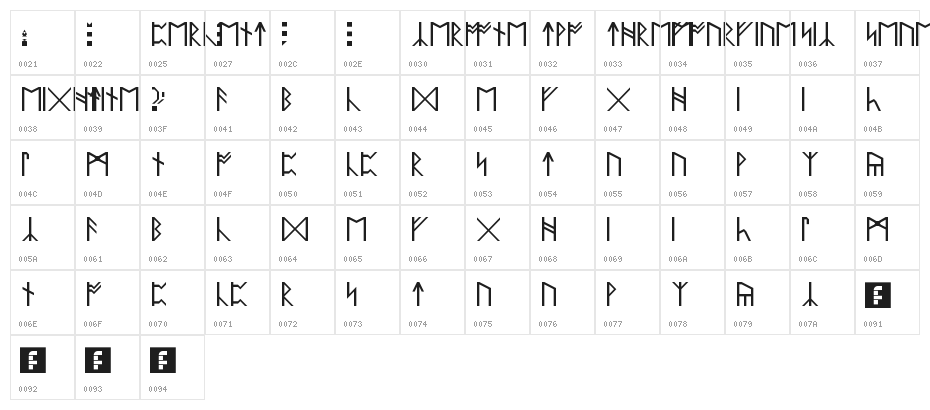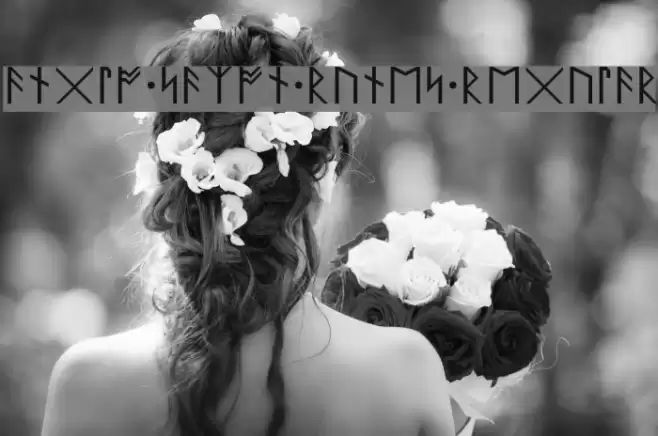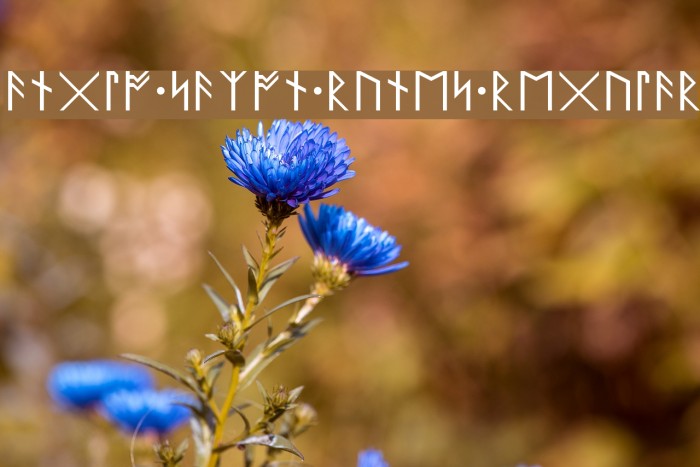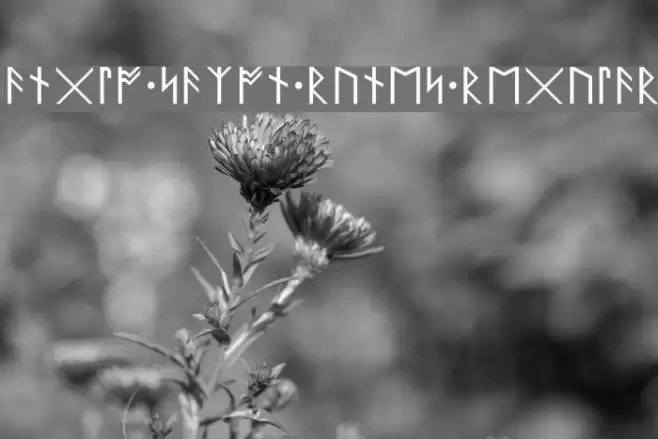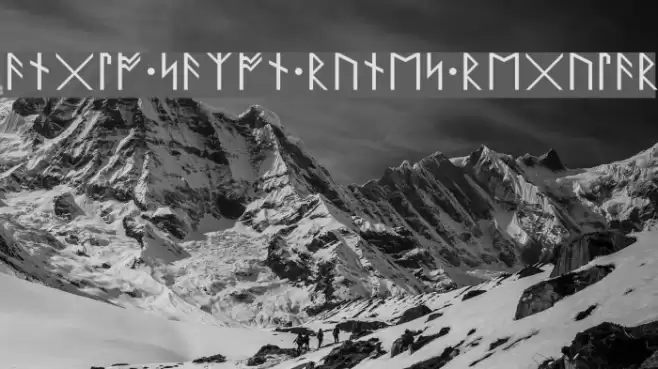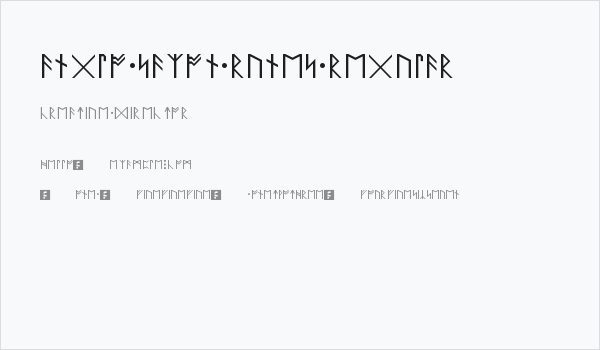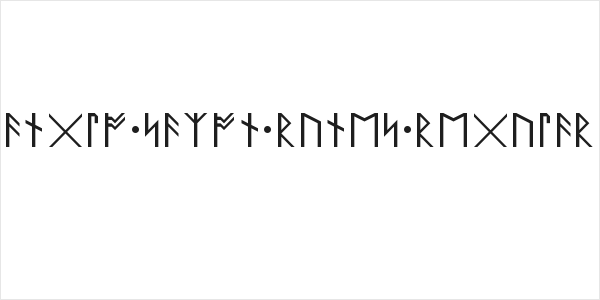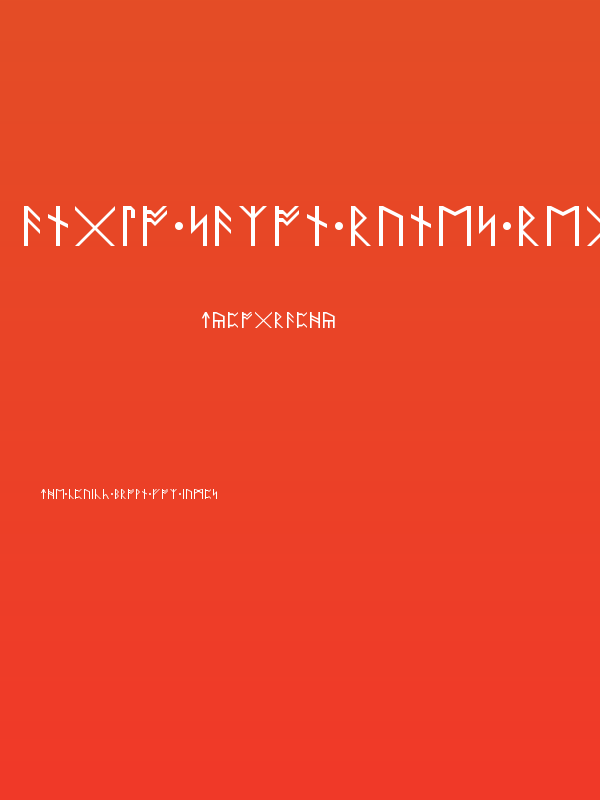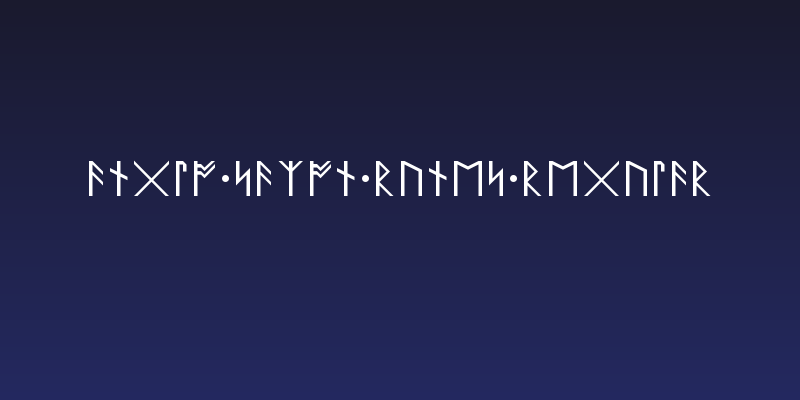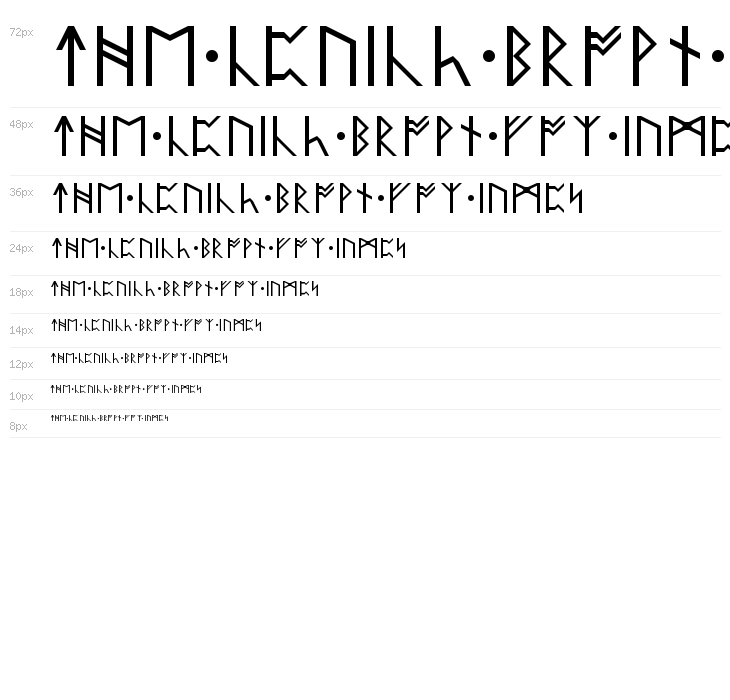
Anglo Saxon Runes Regular Font
Anglo Saxon Runes Regular Description
This font is inspired by ancient runic alphabets, featuring angular and geometric shapes that evoke a sense of historical and mystical significance. The characters are crafted with straight lines and sharp angles, reminiscent of inscriptions carved into stone or wood. The overall appearance is bold and striking, with a unique aesthetic that captures the essence of ancient scripts. The font includes a full set of uppercase and lowercase letters, numerals, and a selection of special characters, all designed to maintain the authentic runic style. The spacing between characters is consistent, allowing for readability while preserving the distinct look of each symbol.
| Proposed Projects | Ideal for projects involving historical themes, fantasy games, book covers, or any design requiring a mystical or ancient aesthetic. |